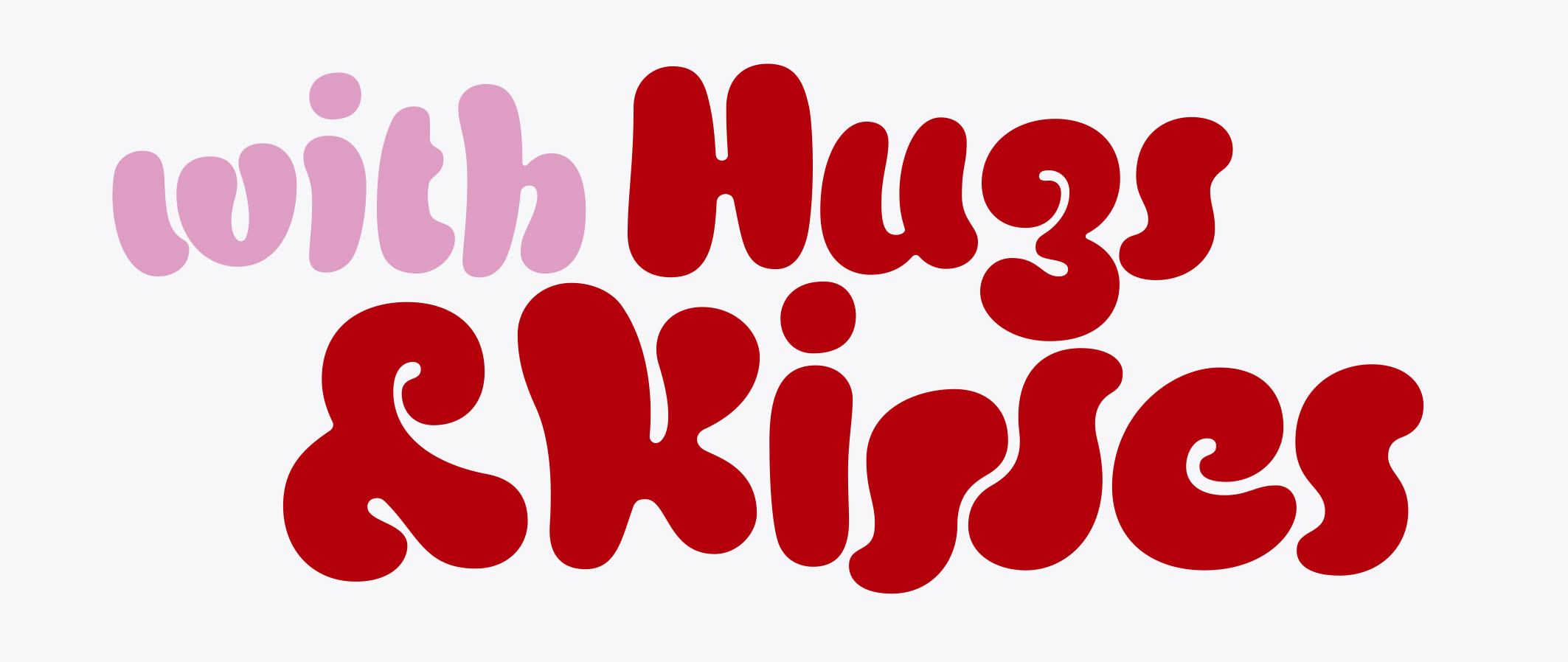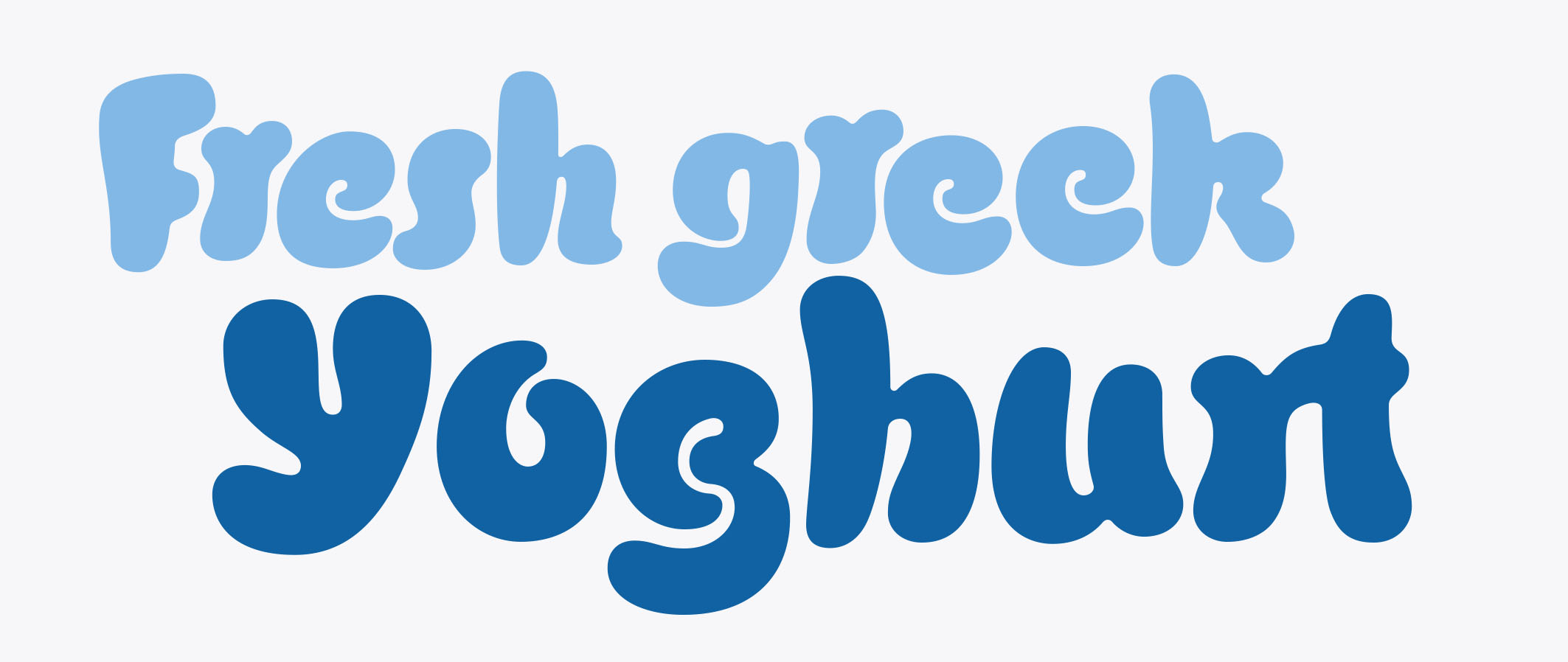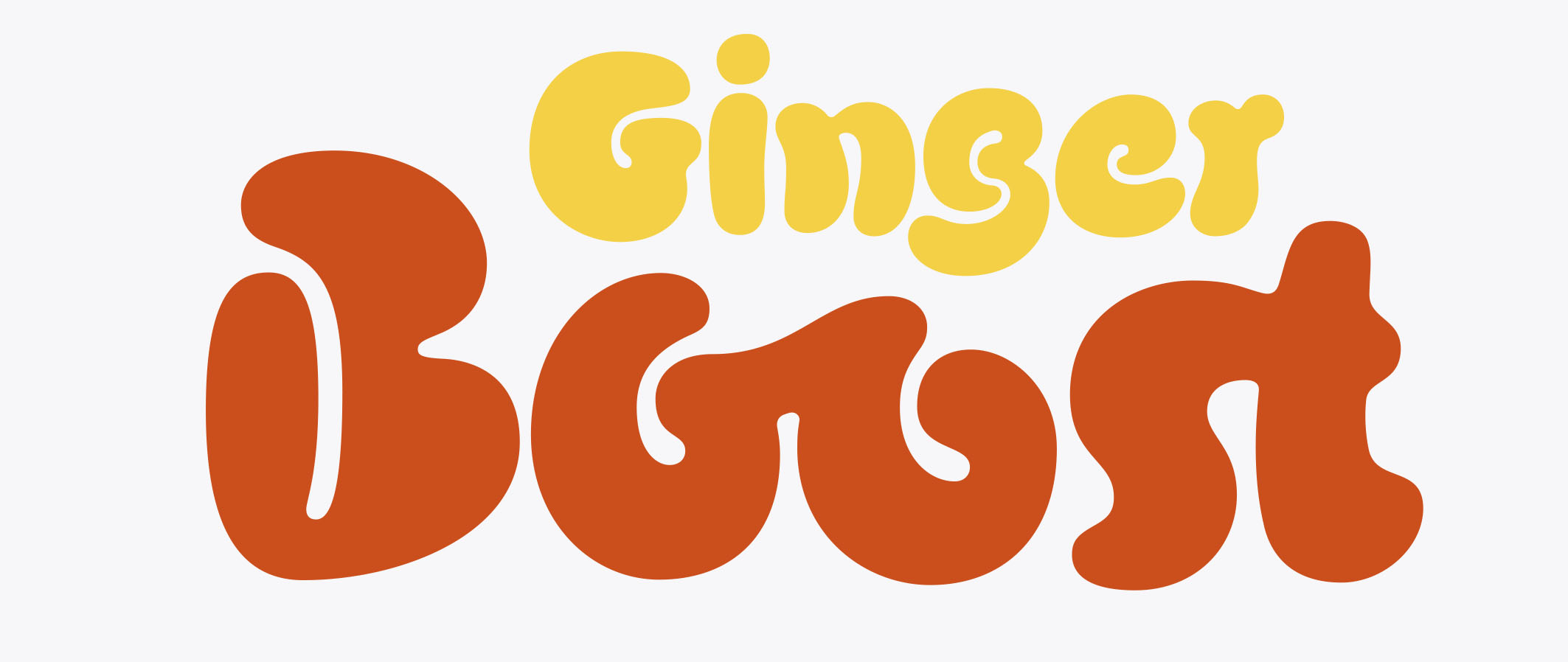
Chewbrio
Imagine shaping letterforms and messages from dough or chewed gum.
This is Chewbrio in essence; No straight lines, no closed shapes and no sharp corners. Chewbrio is a fresh take on stencil. Four sets of all basic characters make for a very large number of combinations, and a hoard of ligatures will further your ability to surprise.